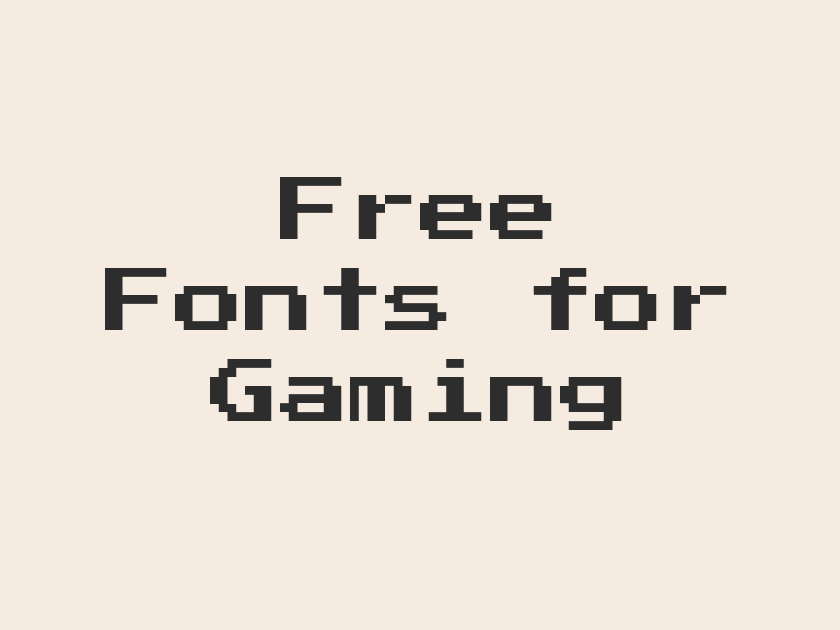
74 Best Free Fonts for Gaming
Gaming culture has its own visual language: pixelated nostalgia, neon-lit sci-fi, chrome-plated esports logos, and the gothic lettering of fantasy loot screens. Whether you are designing a Twitch overlay, a game’s title screen, a Discord server banner, or a tournament bracket, the right typeface does a lot of the storytelling before a single word is read. Every option below is free on Google Fonts, so you can build a full brand kit for a stream, studio, or indie release without spending a cent on licensing.
The list spans retro arcade bitmap faces, futuristic HUD lettering, bold display fonts built for logos and title cards, fantasy and horror scripts for RPGs and survival games, and a handful of technical monospace fonts for scoreboards and code-adjacent UI.
1. Press Start 2P
Press Start to begin your quest
Press Start 2P
This is the font that everyone pictures when they hear “video game typeface.” Built from the actual 8-bit character grid of early arcade cabinets, its blocky glyphs read as instantly nostalgic, evoking coin-op cabinets and NES cartridges.
Because it is so literal about its pixel origins, it works best in short bursts: titles, score counters, achievement badges. At paragraph length it becomes exhausting to read, so save it for headlines and let a cleaner font carry body copy.
2. VT323
VT323
A monospaced terminal font styled after old CRT monitors, VT323 gives menus and dialogue boxes that green-phosphor, command-line feel without tipping into full pixel-art territory. It stays legible at small sizes better than most retro fonts, making it a solid pick for in-game console text.
3. Silkscreen
Silkscreen
Crisp and geometric, Silkscreen renders each letter on a tight bitmap grid with a slightly friendlier rhythm than Press Start 2P. It suits indie pixel-art games, itch.io project pages, and stream graphics that want an arcade feel without looking quite so aggressively retro.
4. Pixelify Sans
Pixelify Sans
Pixelify Sans softens the bitmap concept into something more readable in longer stretches, with rounded pixel edges that feel closer to a modern indie game’s UI than a 1980s cabinet. It pairs naturally with cozy pixel-art titles, farming sims, and dialogue-heavy adventure games.
5. Jersey 10
Jersey 10
Jersey 10 borrows its DNA from scoreboards and jersey numbering, giving it a chunky, slightly irregular pixel texture that feels handmade rather than machine-perfect. It has a scrappy charm suited to fan-made game jams and arcade sports titles.
6. Jersey 15
Jersey 15
A slightly heavier sibling in the same pixel-sport family, Jersey 15 leans further into the varsity-numeral feel, which makes it a fun choice for sports games, fantasy leagues, and tournament bracket graphics.
7. Micro 5
Micro 5
Micro 5 is a tiny, dense bitmap face that looks like it was pulled straight from a handheld console’s low-resolution screen. Use it sparingly, as a decorative accent or HUD label, since its scale and texture were built for glancing, not reading paragraphs.
8. DotGothic16
DotGothic16
Originally designed for Japanese digital signage, DotGothic16 has a dot-matrix precision that reads as both retro tech and modern kanji-friendly UI, which makes it a strong fit for games with a Japanese arcade or cyberpunk aesthetic.
9. Tiny5
Tiny5
Tiny5 packs a full pixel alphabet into an extremely compact footprint, ideal for the tiny stat readouts and inventory labels tucked into a game’s corner UI where every pixel of screen space matters.
10. Monoton
Monoton is pure electric marquee lighting rendered in type, all looping tubes and glowing outlines. It belongs on retro arcade branding, synthwave game titles, and anything that wants to look like it is lit up in neon over a dark background.
11. Orbitron
Orbitron is the default shorthand for sci-fi gaming typography, all geometric precision and widened counters that suggest spacecraft dashboards and far-future interfaces. It has appeared on countless game logos, esports team branding, and tech startup sites, which means it reads as instantly futuristic to almost any audience.
It works best in all caps at large display sizes, where its architectural structure really shows. At small sizes or lowercase it can feel a bit stiff, so reserve it for logos, title screens, and short UI labels rather than long-form text.
Always test display fonts at the actual size they will be used on screen, since many of the punchiest gaming fonts lose clarity fast once they shrink below headline size.
With this many free, genuinely game-appropriate typefaces on Google Fonts, there is rarely a reason to reach for a paid alternative. Mix a few categories, keep hierarchy simple, and the right pairing will do a lot of the visual storytelling on its own.